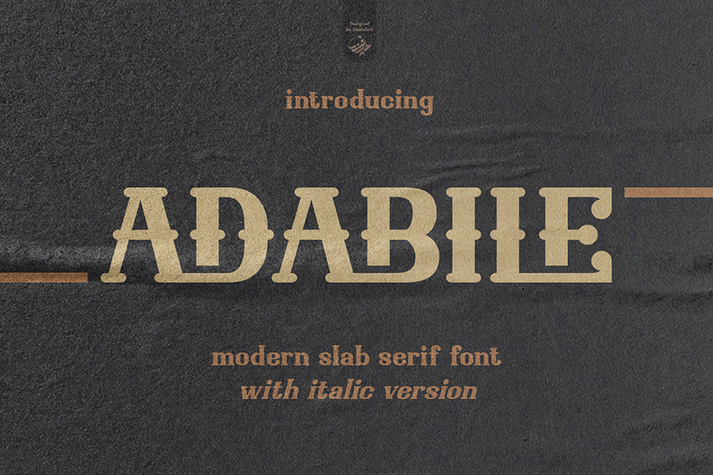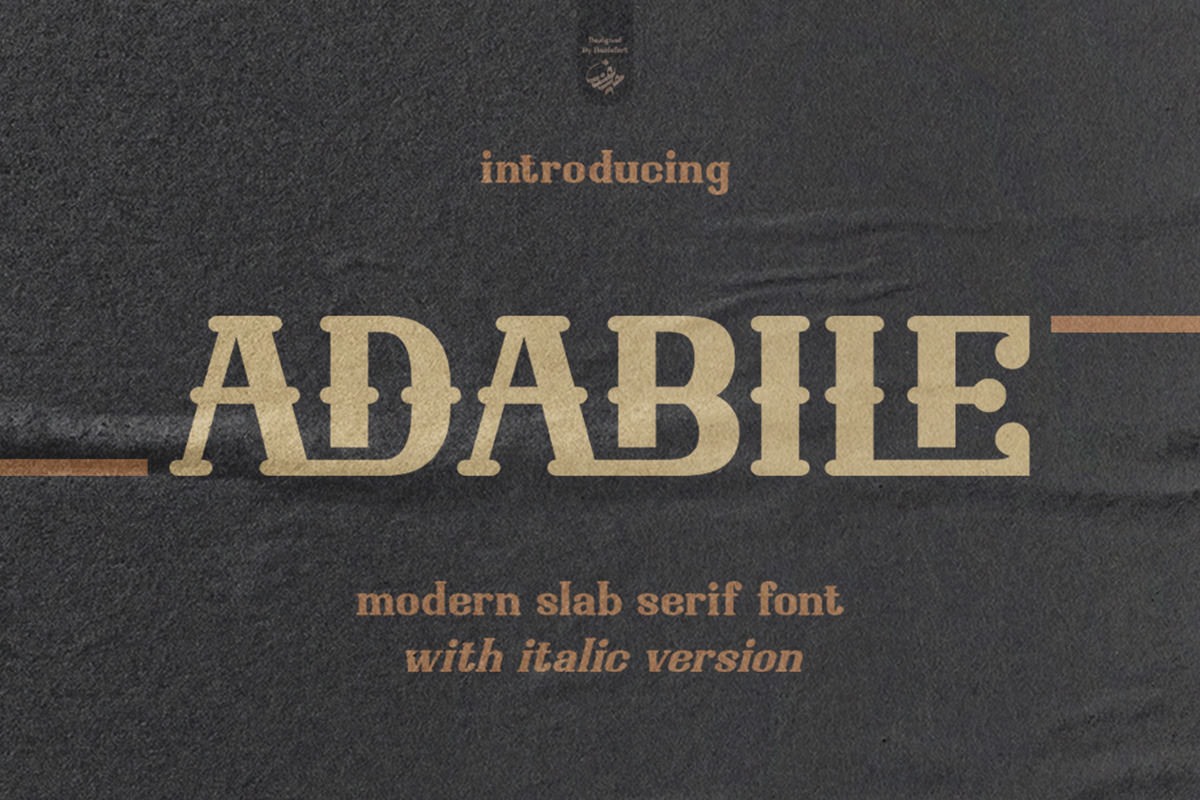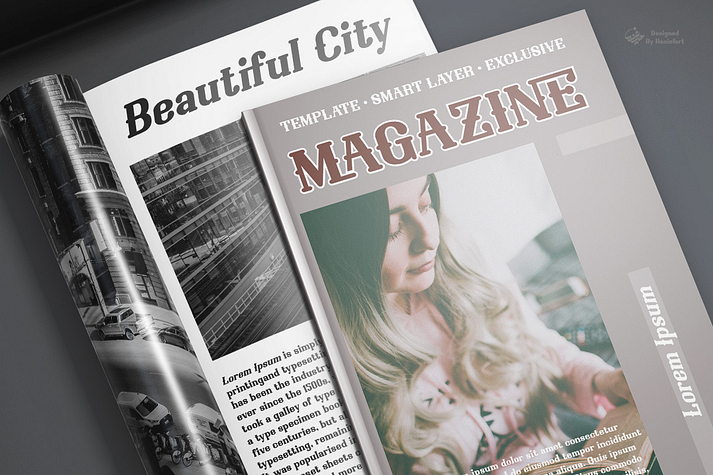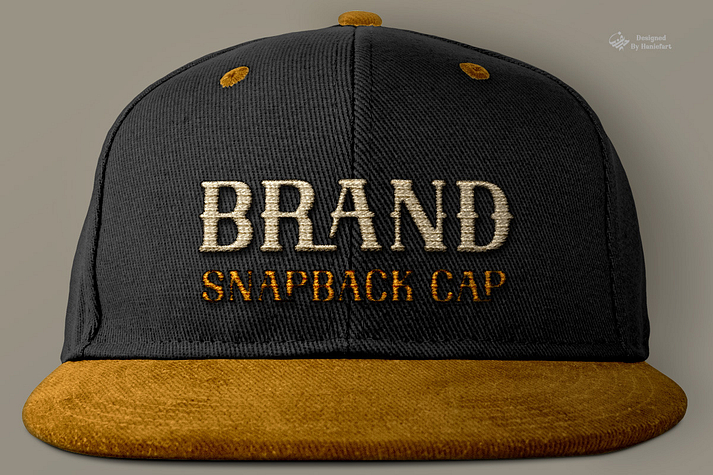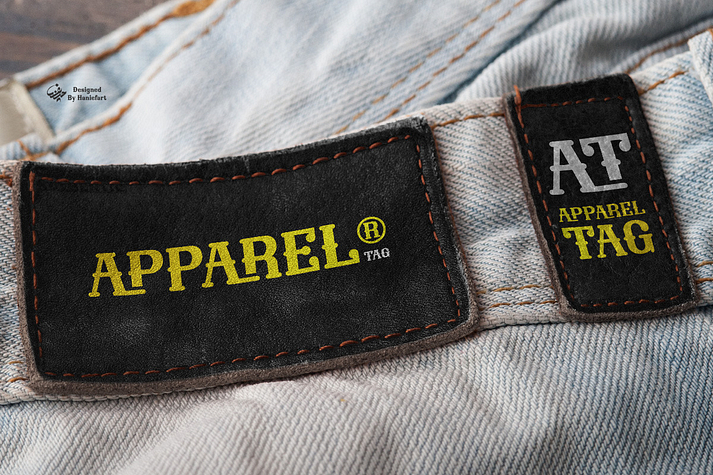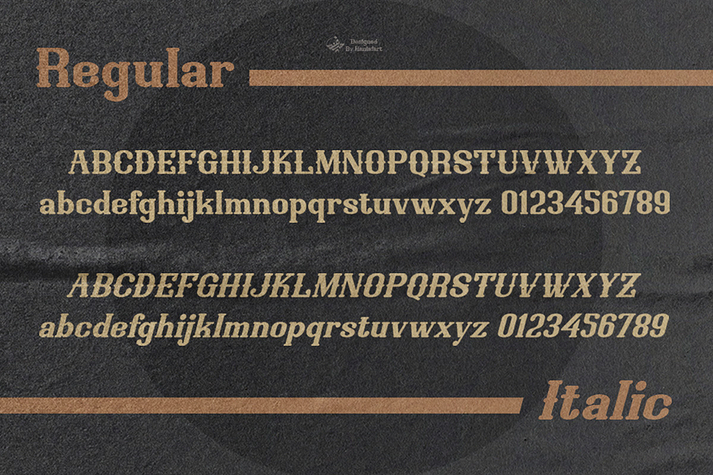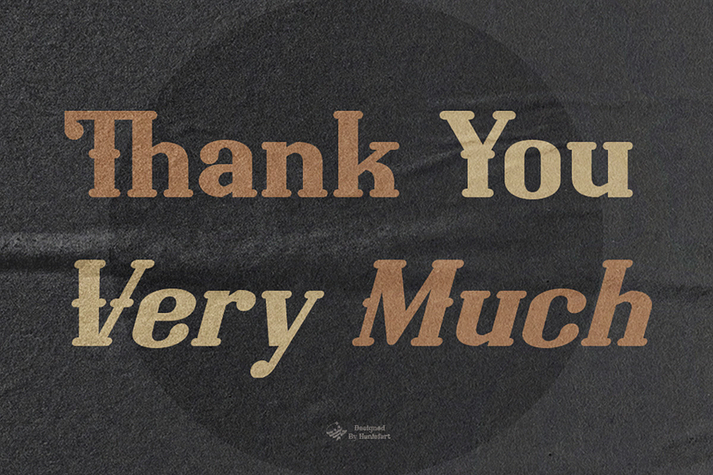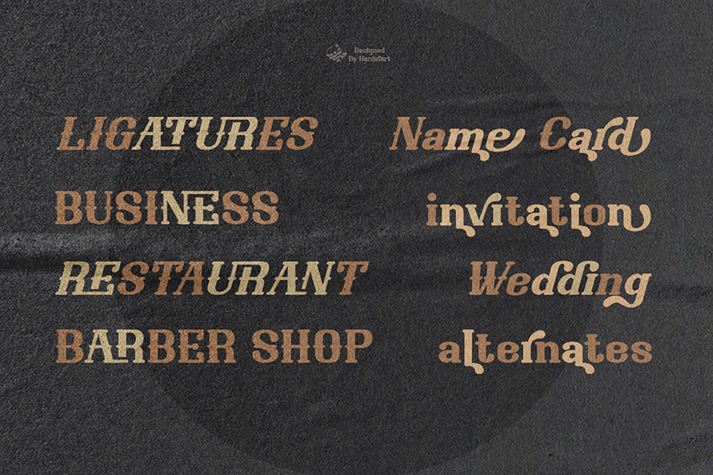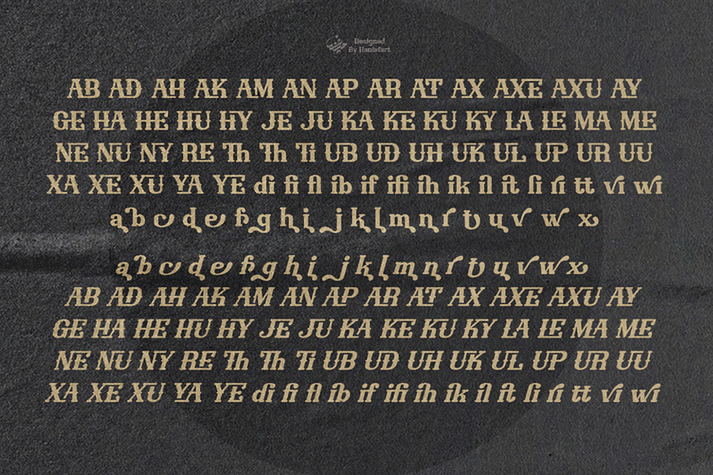
Adabile
Adabile is a retro, serif and slab serif font family. This typeface has two styles and was published by Haniefart.
Immerse yourself in the world of typography with Adabile, an original slab serif font created by hand. With Adabile, athletic power combines with refined elegance to create a modern aesthetic that is alluring and inviting. This versatile typeface is a double act, presented in both regular and italic versions to suit your designer’s eye. Going beyond conventional offerings, Adabile offers upper and lower case letters, complemented by punctuation and symbols, for a fully customizable typography experience. Ideal for a number of applications, it enhances the appearance of a business brand, instills dynamism into film titles, enhances the appeal of book and magazine covers, and gives business cards and logos a contemporary edge. Whether creating interesting comics or many other design contexts, Adabile adds a unique touch that is clearly its own.
Styles Retro, Serif, Slab Serif